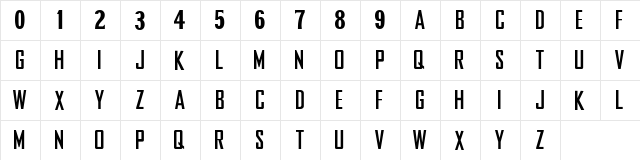
MLB Diamondbacks 2007 Regular
Design Context for MLB Diamondbacks 2007 Typeface
MLB Diamondbacks 2007 offers clean, dependable letterforms without strong stylistic allegiance, making it a practical choice for designers who need flexibility.
Pro Tip: Use MLB Diamondbacks 2007 in both headline and body roles to test its range before committing to a single application.